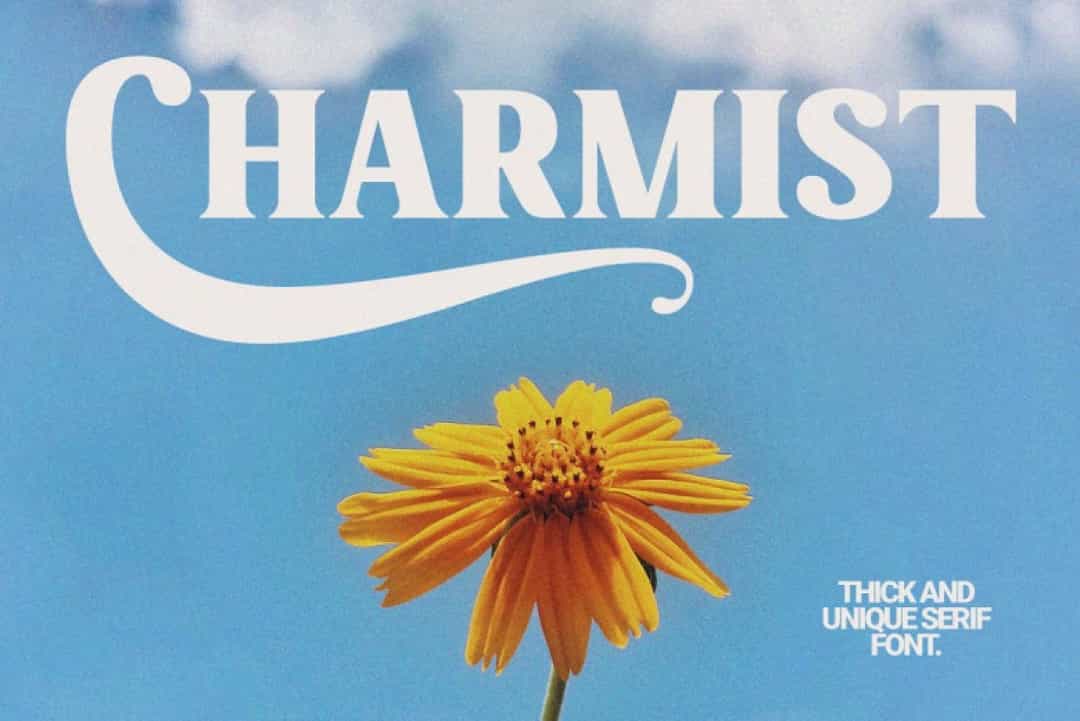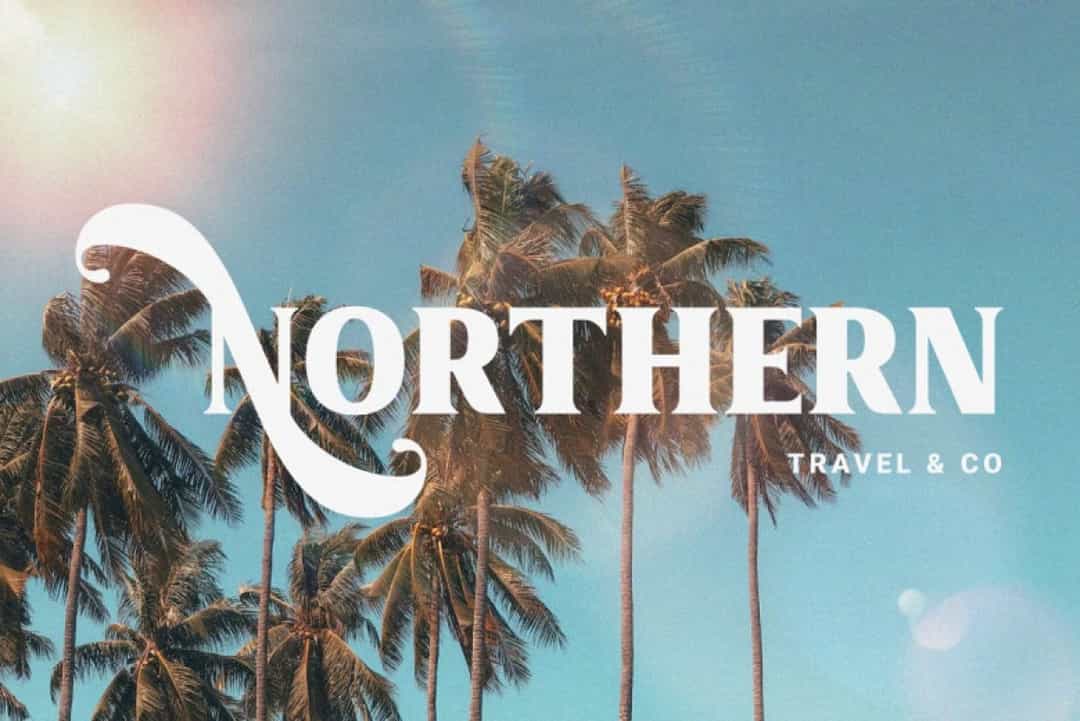
Say hello to this new font. “Charmist” is a serif font with a modern and unique style with the difference that the capital letters are bolder but with the same shape (All Caps). There is a uniqueness in the alternative characters that you can play. Very impressive for branding designs, logos or creative posts. Get it now and start playing!